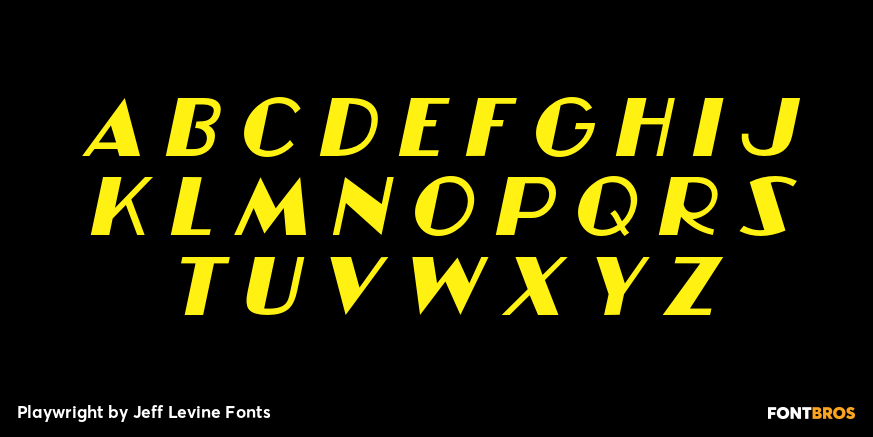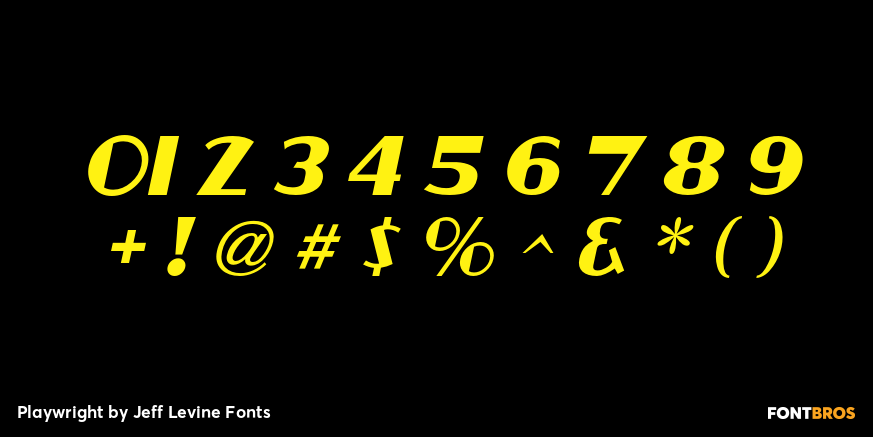
Playwright
Playwright JNL and Playwright Slant JNL are versions of the perennial Art Deco font Broadway – with a look as if lettered by a sign painter.